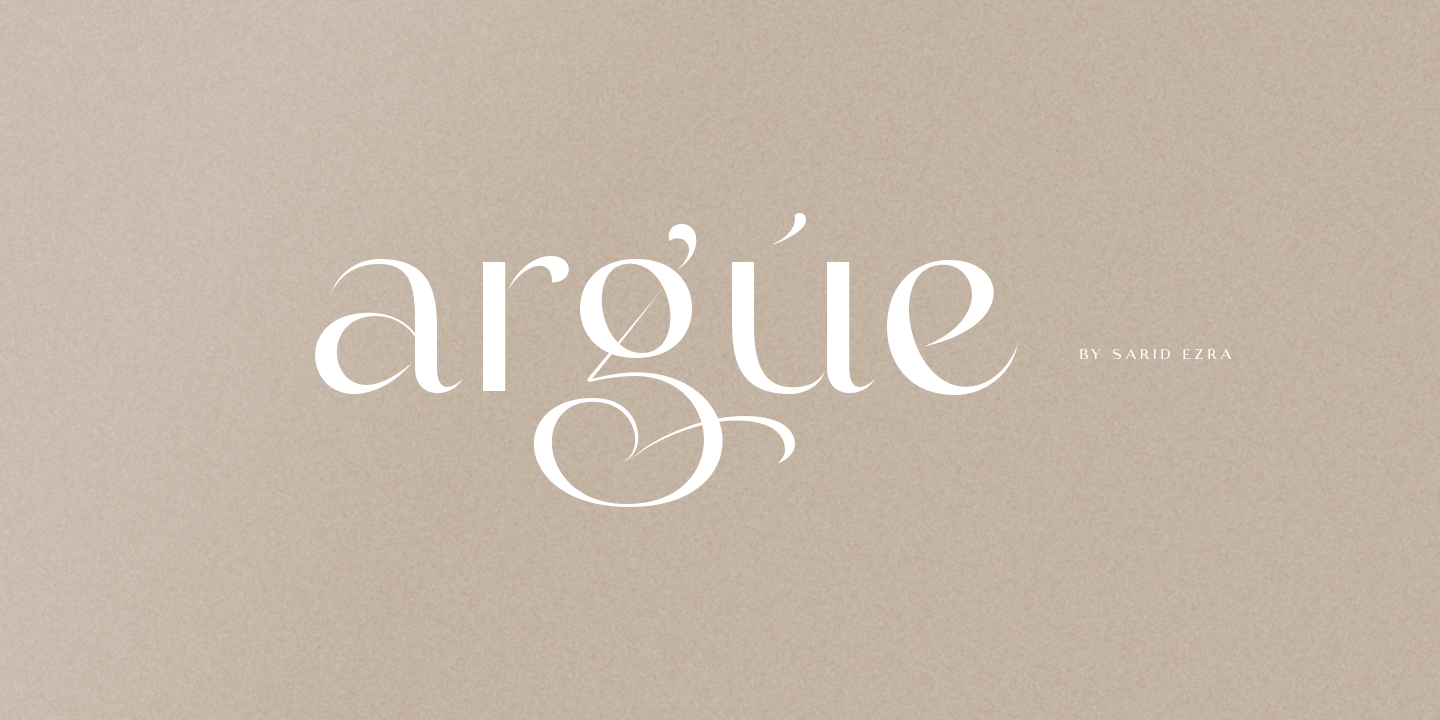
Argue Font Free Download is a bold and assertive typeface perfect for headlines, posters, branding, editorial design, and impactful marketing materials. Its strong strokes and confident style demand attention and make your message stand out.
What makes this font so exciting is its unique blend of modern sharpness with a touch of vintage charisma, giving your designs a dynamic and memorable personality. Argue Font conveys power and clarity with every letter.
Argue Font offers multiple weights including Regular, Bold, and Italic, providing flexibility to create strong typographic hierarchies and versatile layouts.
Make your designs impossible to ignore with the bold and striking presence of Argue Font Free Download, and communicate your ideas with authority and style.